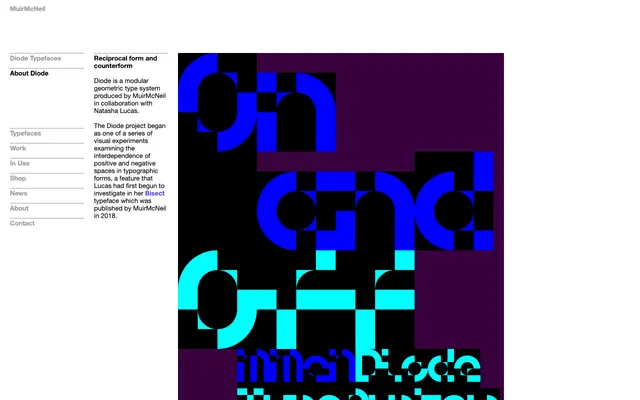
Diode
Muirmcneil · Natasha Lucas
A modular geometric type system built from just three geometric shapes, exploring the reciprocal relationship between letterform and counterform across three positive and negative cuts.
Designed by Natasha Lucas in collaboration with MuirMcNeil, Diode uses only three geometric modules to construct its alphabet, deliberately playing positive and negative space against each other to produce letters that are structurally incomplete yet legible. The family ships in three versions, one positive and two negative, plus three additional overlay fonts corresponding to each geometric module, enabling colour delineation in layered compositions. The work extends Lucas's earlier research into form and counterform first explored in her Bisect typeface, published by MuirMcNeil in 2018.
Diode is built from three geometric modules exploring reciprocal positive and negative space, placing it firmly in the display/experimental modular category rather than any conventional text classification.